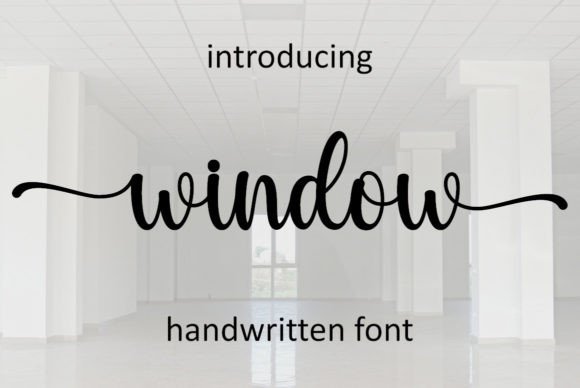
Introducing the Window Font - the ultimate choice for anyone seeking the perfect script font for their next design project. Whether you're an experienced graphic designer or just starting out, Window is the font that will elevate your work to new heights. Created by the talented designers at Hardiboy Design, Window is the best font for lotto games and anyone looking to add a touch of personality to their designs.
Window is a unique and charming handwritten font that is perfect for a wide range of applications. Its simple and friendly appearance makes it ideal for crafts, digital design, presentations, or even making greeting cards. With its versatile design, this font has the potential to become your go-to choice for any occasion.
One of the key features of Window is its PUA encoding, which allows you to easily access all the glyphs and swashes. This means you have the freedom to customize and personalize your designs in any way you like, making Window an excellent choice for designers who demand flexibility.
In addition to its versatility, Window is also a highly legible font that is easy on the eyes. Its clean lines and balanced proportions make it an excellent choice for body text, headlines, or even logos. With Window, you can be sure that your designs will always look professional and polished.
In conclusion, if you're looking for a font that is both beautiful and functional, then Window is the perfect choice for you. With its unique charm, versatile design, and ease of use, Window is sure to become your new favorite font. So why wait? Download Window today and start creating designs that are sure to impress!